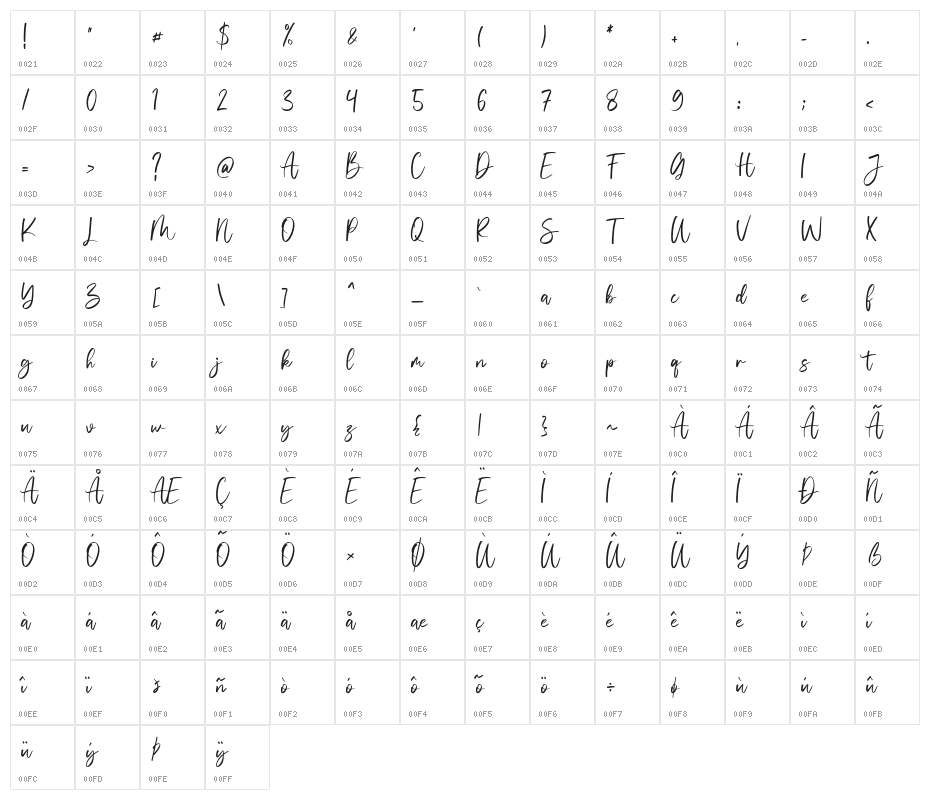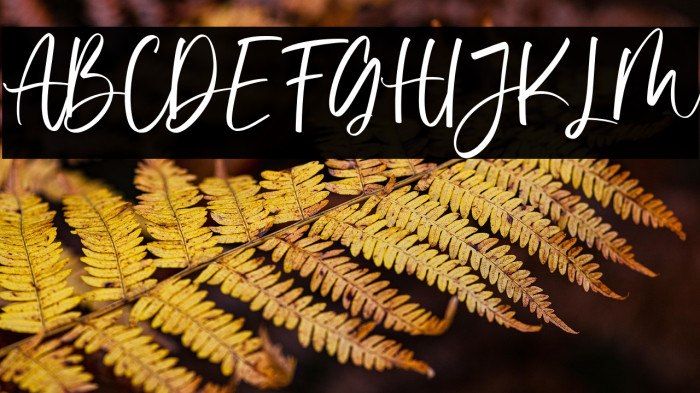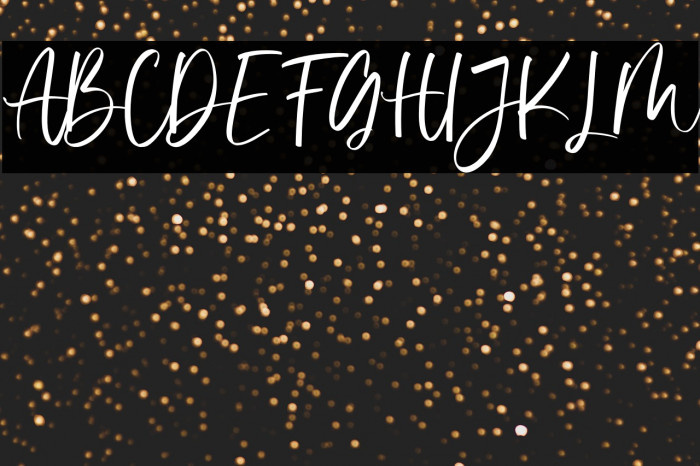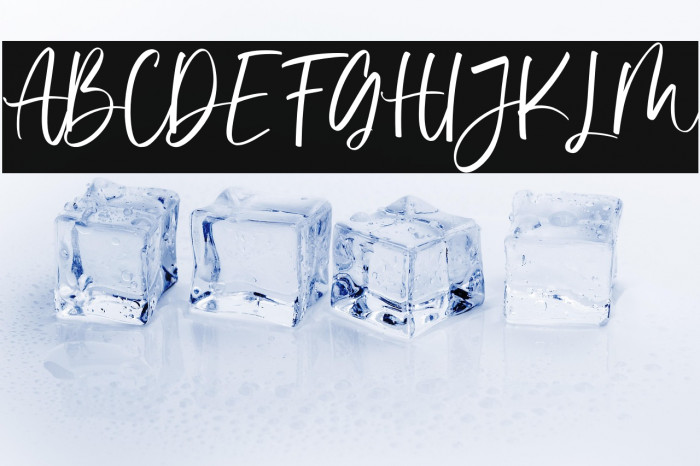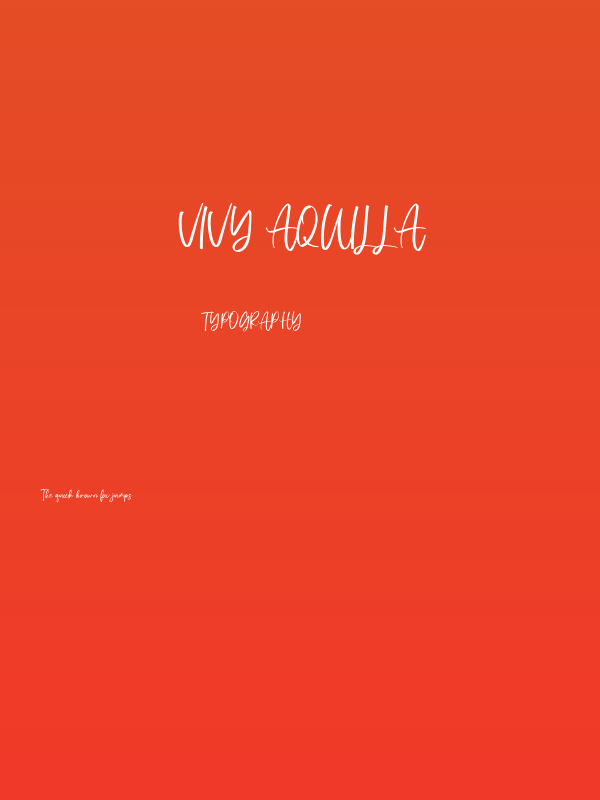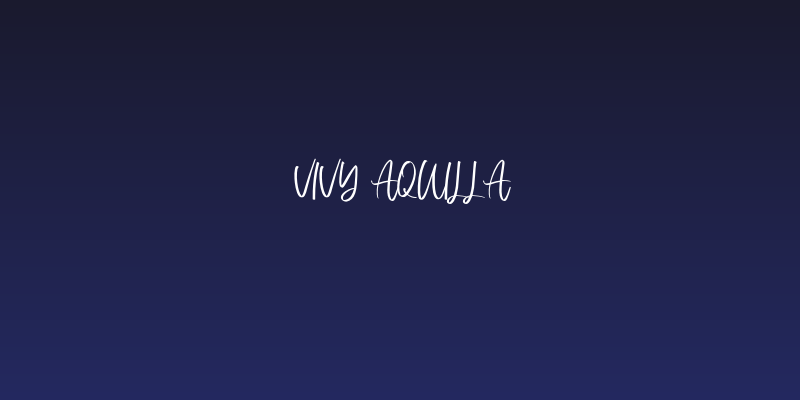
Vivy Aquilla Font
Vivy Aquilla Description
This font exudes a lively and expressive handwritten style, characterized by its fluid and dynamic strokes. The uppercase letters are bold and prominent, while the lowercase letters maintain a consistent flow, creating a harmonious balance. The numerals are clear and distinct, complementing the overall aesthetic. Special characters are thoughtfully designed to match the playful yet elegant feel of the font. Its versatility makes it suitable for a variety of creative projects, offering a personal touch that stands out.